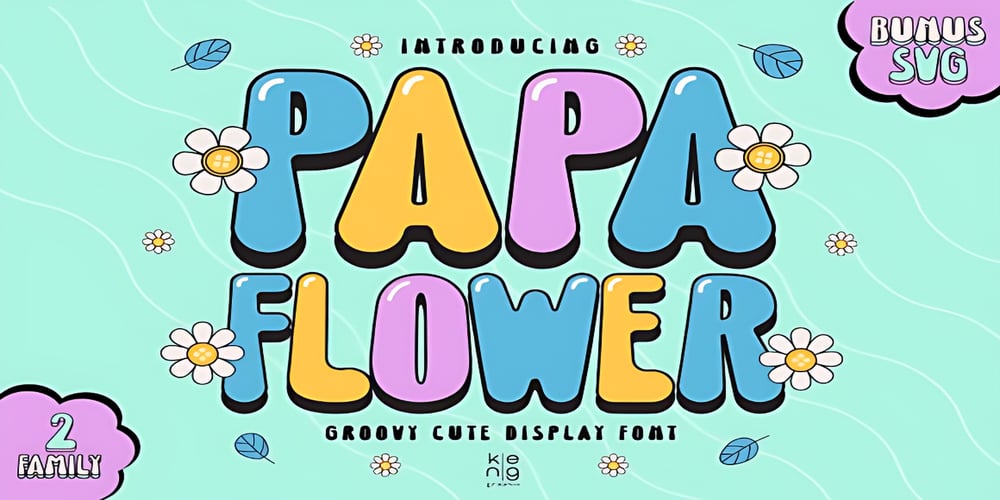
Papa Flower Font Family was designed by Kanna Aoki and published by Adita Fonts. Papa Flower contains 2 styles and family package options. Papa Flower is a Display font Groovy Style with a great punch. Everything written in this font will be instantly recognizable and will attract attention. It will work great for comic book style, online games, cards, love shirts, posters, movie titles, eye-catching social media posts, or anything that requires youthfulness and courage.COMPATIBILITY Windows Apple/Mac Linux Easily convert to webfont Cricut Silhouette